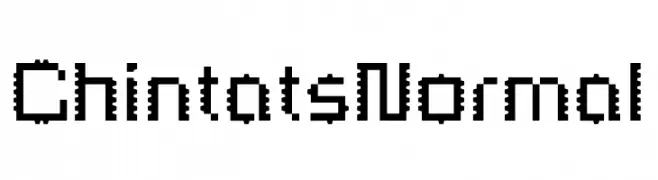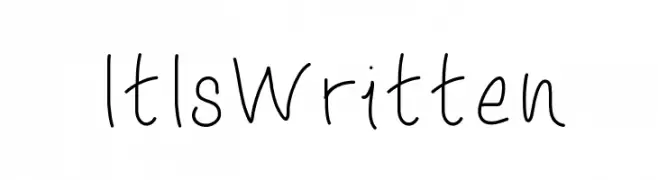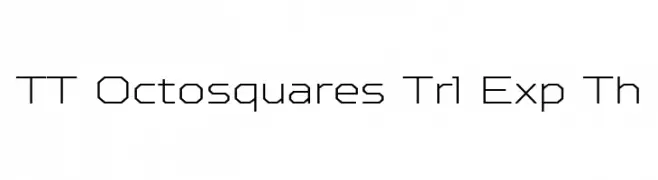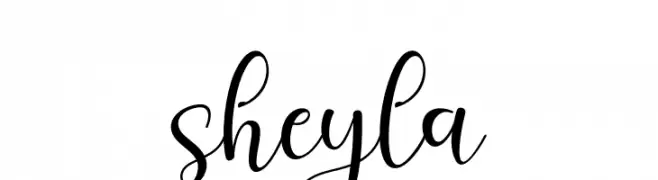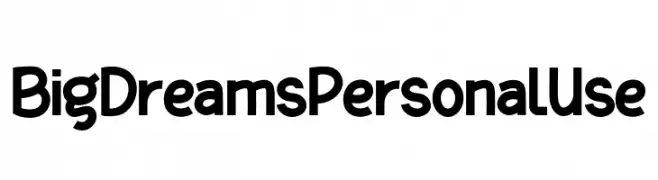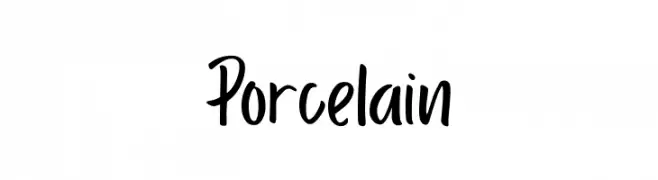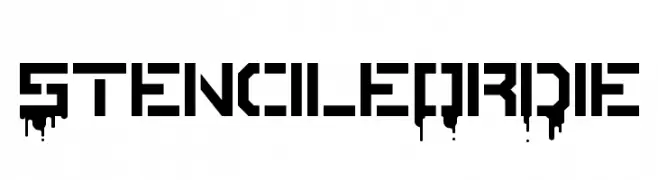
A pixelated, retro-style font with a digital, tech-inspired design.
A playful, casual handwritten font with smooth, flowing letterforms.
A geometric, angular font with octagonal shapes and a modern aesthetic.
An elegant, flowing script font with modern, decorative elements.
A bold, geometric font with a modern and clean design.
A playful, handwritten font with smooth curves and a casual style.
A bold, stencil-inspired font with a graffiti-like dripping effect.
A playful, decorative font with heart motifs and bold, modern characters.
A bold, dripping font with a spooky, playful aesthetic.